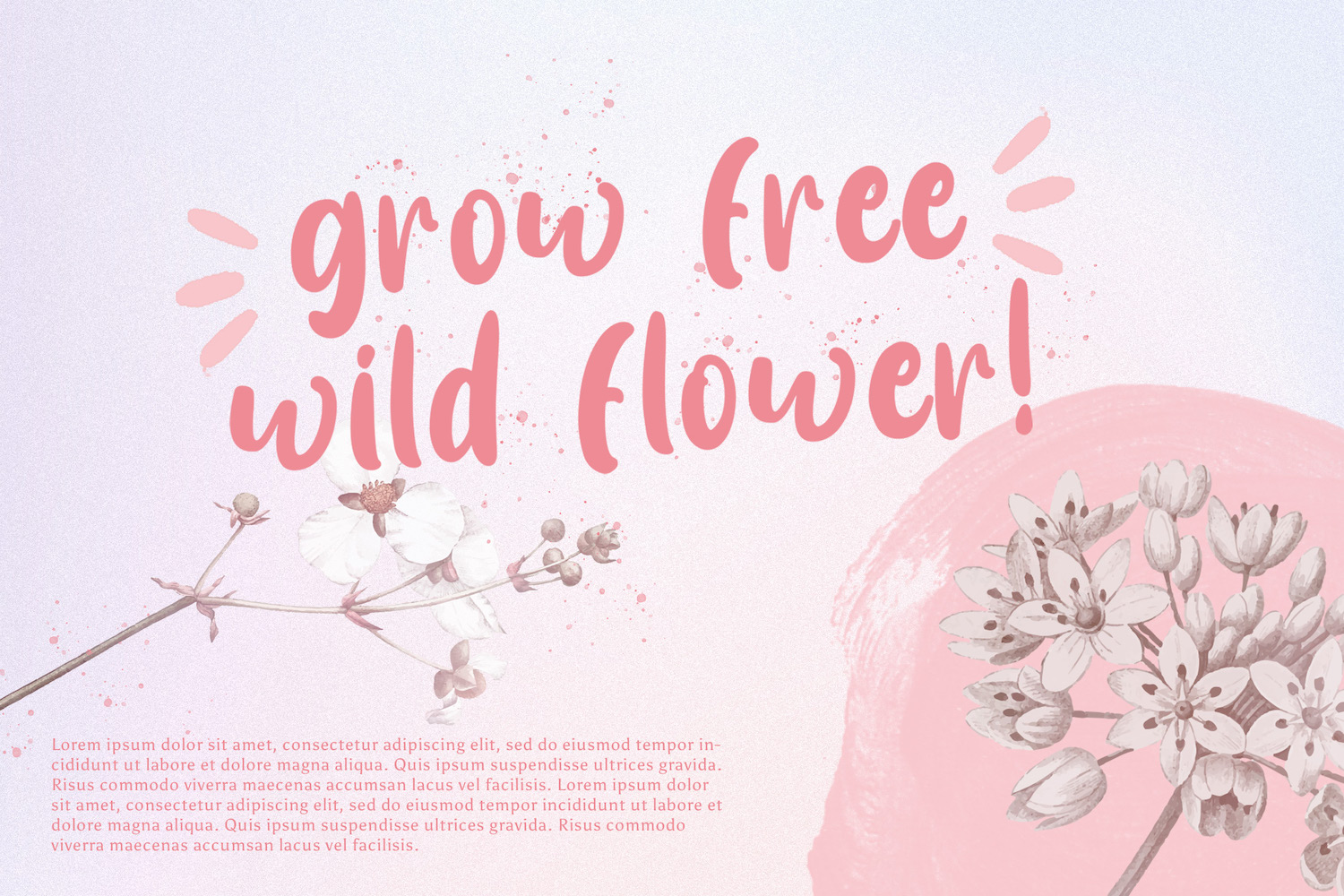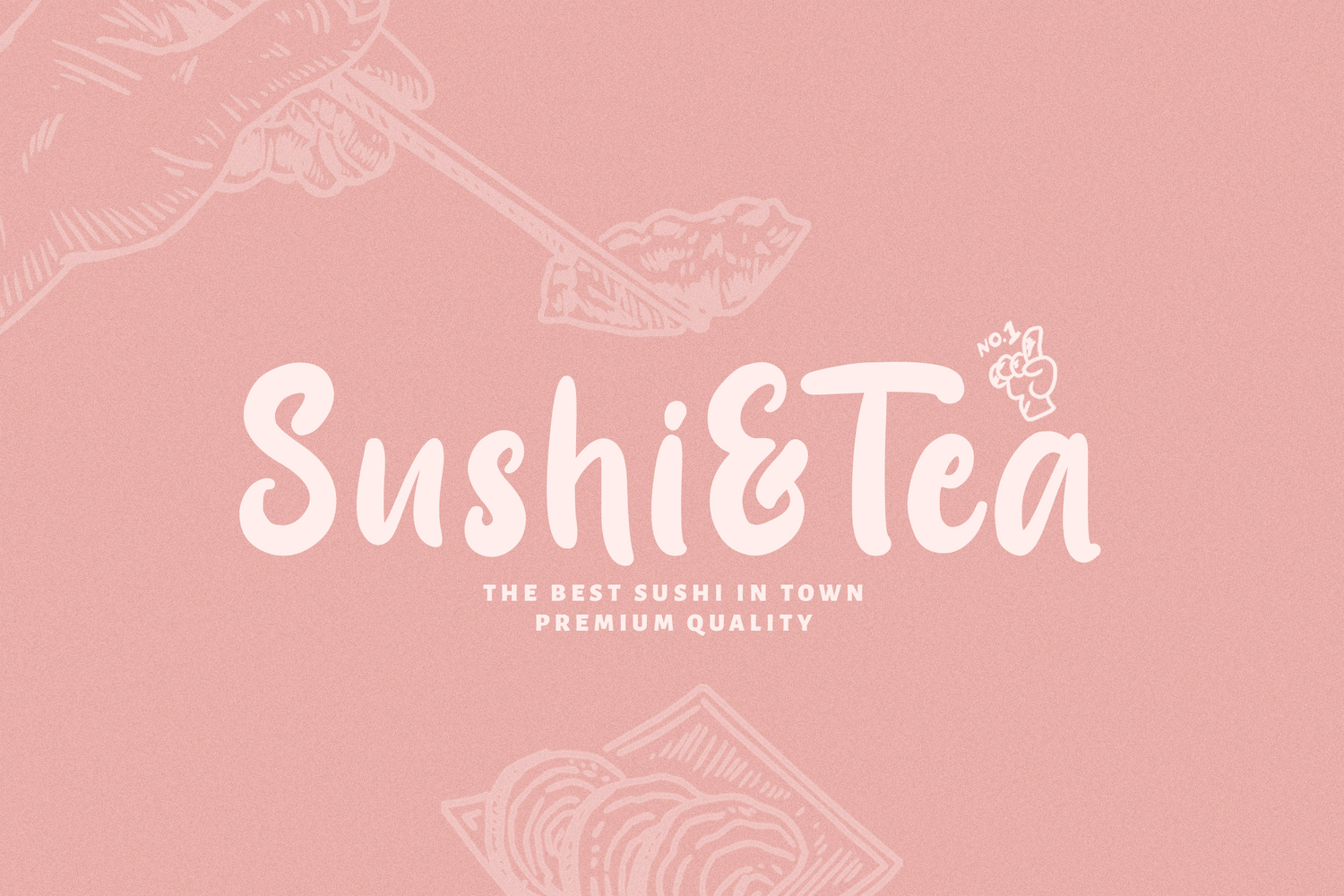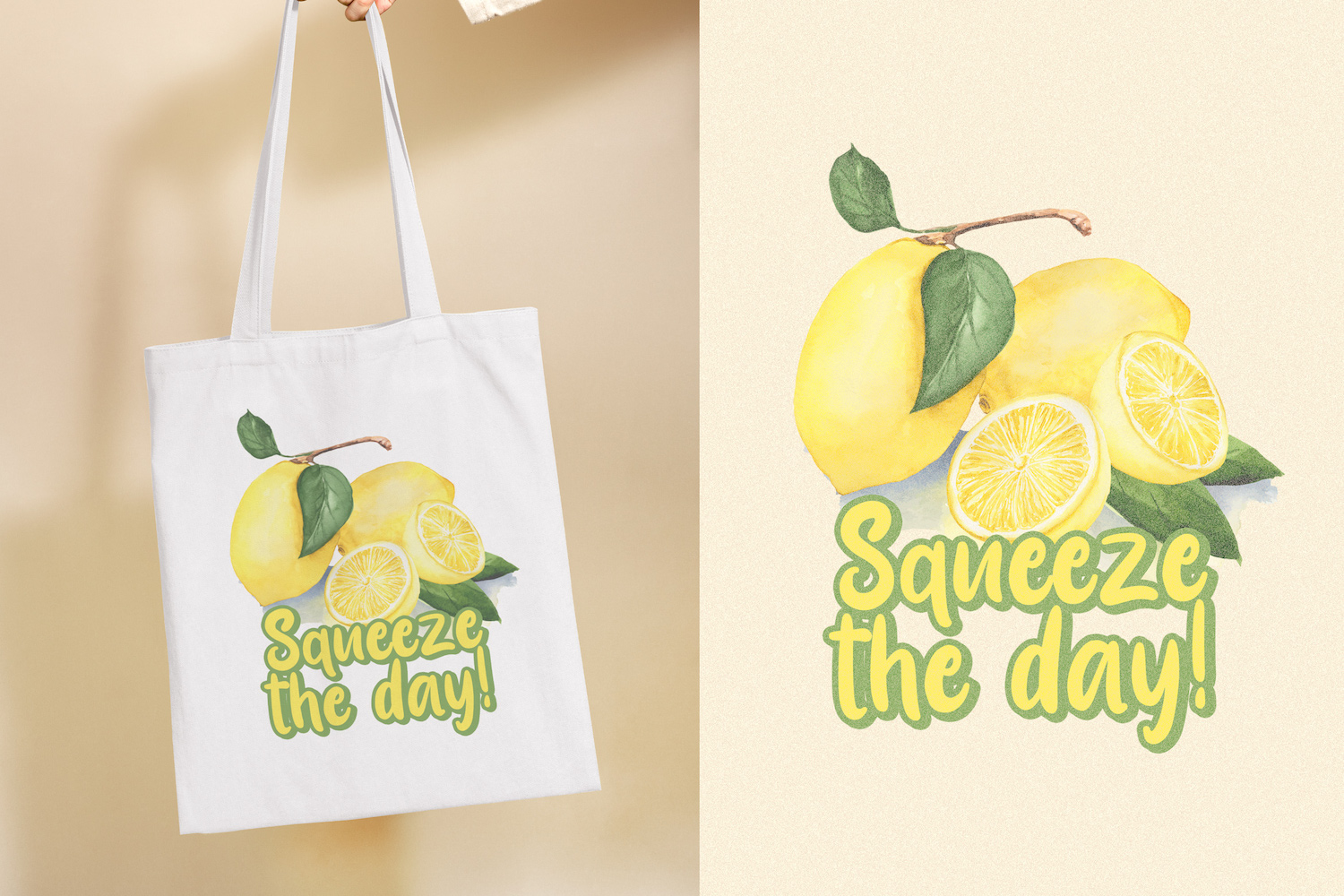
Choosing the right display font is often a balancing act: you want something expressive and memorable, but still clear enough to read at a glance. Maguire is a handwritten display typeface by Stringlabs that solves that dilemma with bold, rounded strokes and a lively, hand-drawn rhythm—playful, warm, and naturally confident without feeling messy.
Maguire is a strong fit when your project needs an upbeat human touch: logo wordmarks with a friendly personality, poster headlines, café menus, product labels, kids-themed designs, social media graphics, quotes, invitations, and merch typography. It performs best at medium-to-large sizes where its bouncy forms, smooth curves, and occasional swash-like movement can shine. It’s less recommended for long paragraphs, small UI text, tight layouts, or serious corporate and luxury branding—its bold character and handwritten texture can dominate the page, and the charm that works in titles may feel too casual or loud in formal contexts. Stylistically, Maguire sits in the sweet spot between “handmade” and “polished”: it keeps a natural handwritten feel while maintaining a consistent weight and clean shapes that preserve readability for short, impactful statements.
If you’re deciding quickly: pick Maguire when you want friendly energy, youthful warmth, and a handcrafted headline that instantly draws attention—skip it when you need quiet neutrality, high formality, or small-size clarity. License: Free Personal Use Only (commercial use requires a proper license).